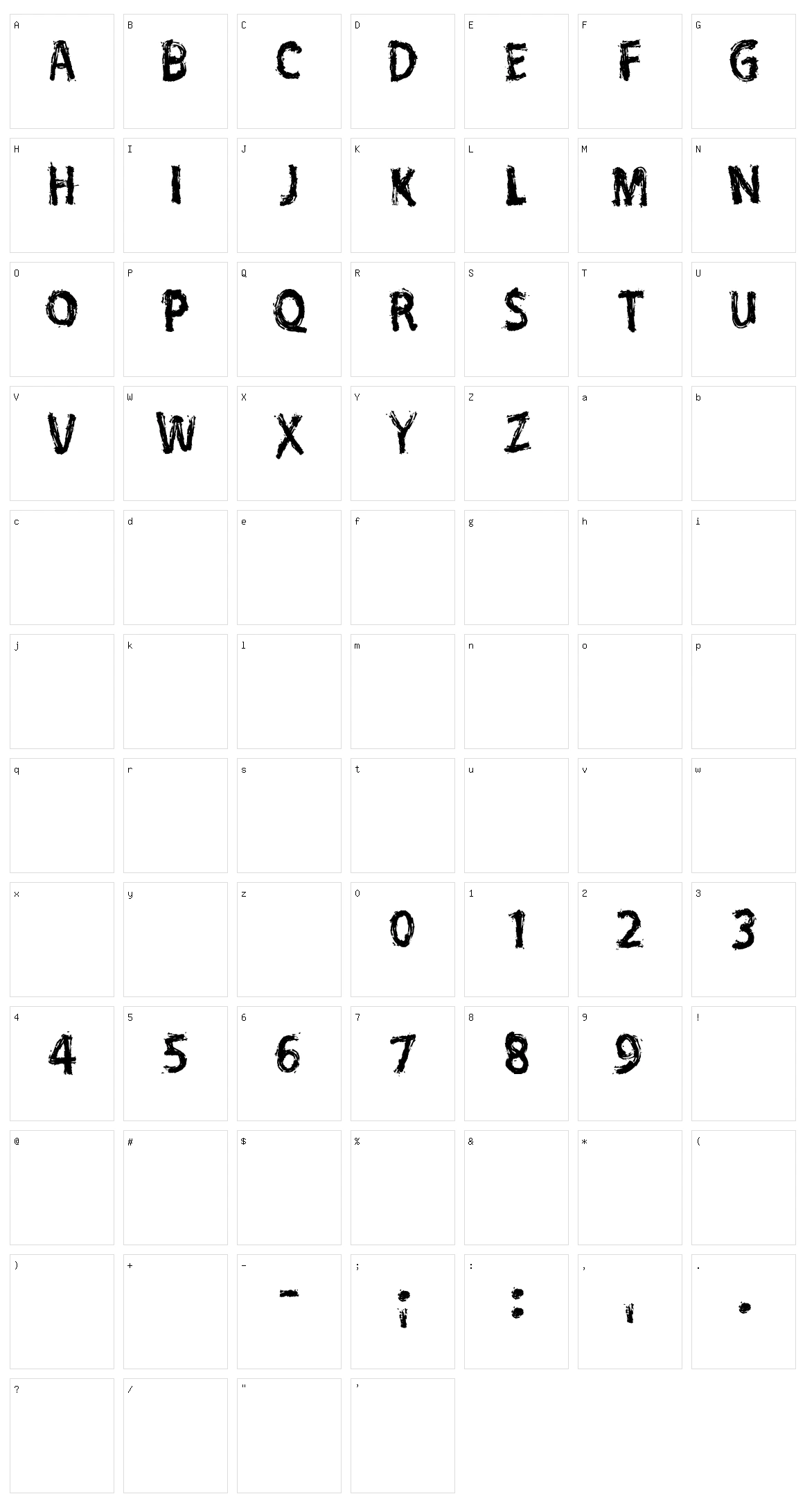
The free font CF Oblivion is carefully designed by Cloutierfontes, showcasing a thoughtful balance of creativity and usability and falls under the Destroy font style. When you download the ZIP file, it contains only 403.17 KB of font files, making it lightweight and quick to download. Please review the license details below to understand permitted usage and distribution rights. If license information is not available, we recommend using this font for personal projects only or contacting the author directly for commercial usage permissions.